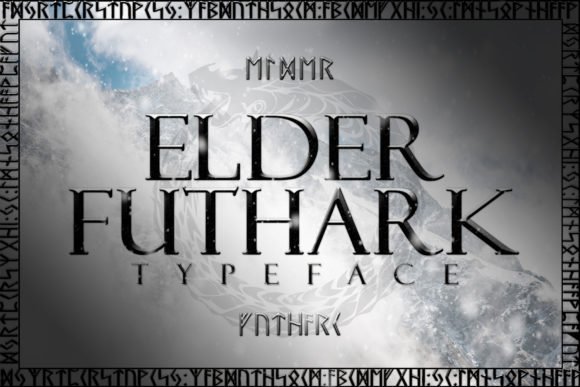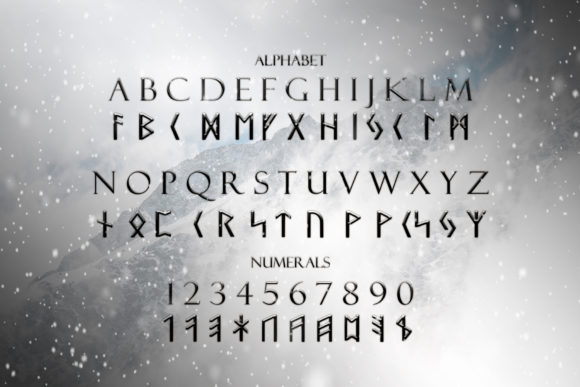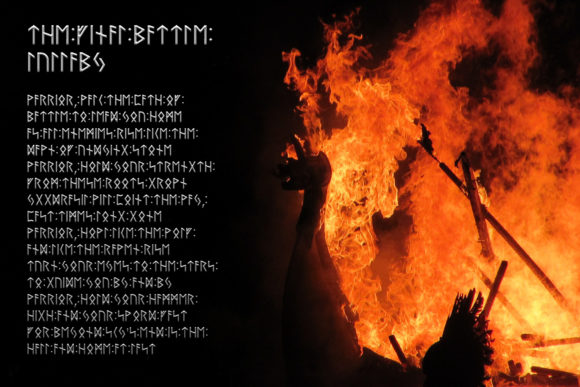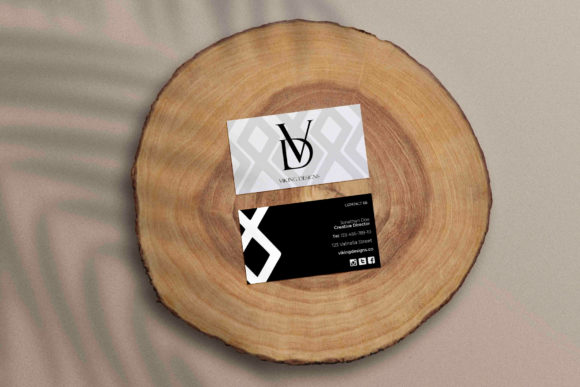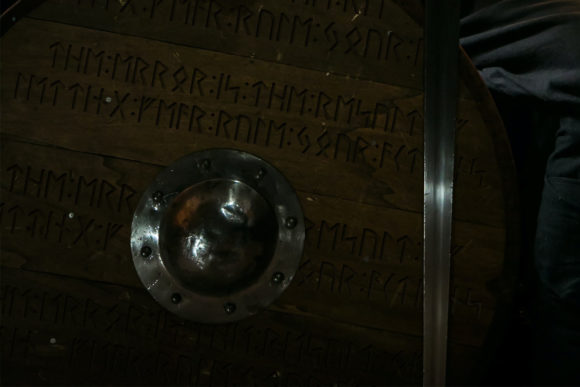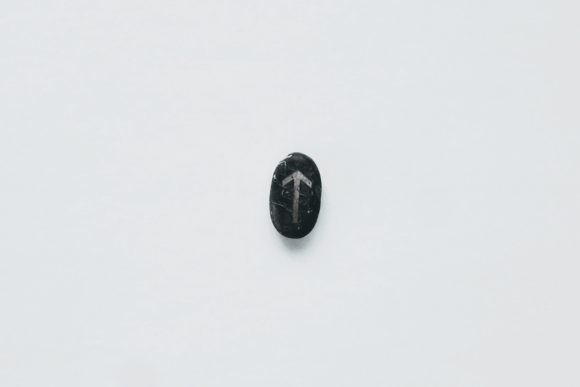
Unleashing the Mystique of the Ancient Runes
As I sat at my desk, surrounded by scattered papers and half-finished designs, I stumbled upon an old book on ancient alphabets. The intricate patterns and symbols on the pages sparked a creative itch within me, and I couldn’t help but wonder what it would be like to bring the mystique of the ancient runes to life. And so, the Elder Futhark Font was born.
This unique font is based on the oldest form of the runic alphabet, used by Germanic tribes from the 2nd to the 8th centuries. With its perfect blend of ancient mysticism and modern design, the Elder Futhark Font is a treasure trove for designers looking to add a touch of history and elegance to their work. Whether it’s a logo, monogram, title, or poster, this font is sure to captivate and inspire.
Elder Futhark Font Key Features
- Font Style: A serif font with a runic design, mimicking the traditional Elder Futhark script.
- Character Set: The font includes the entire Elder Futhark runic alphabet, consisting of 24 characters, as well as additional characters for punctuation and diacritical marks.
- Unique Characteristics: The Elder Futhark Font features a distinctive, hand-drawn design that accurately represents the traditional runic script, making it ideal for use in historical and cultural contexts.
Elder Futhark Font Review
I recently had the chance to work with the Elder Futhark font, and I must say it’s a fascinating addition to any design project. Here are my thoughts on what works well and what doesn’t.
- Authenticity: The font’s design is deeply rooted in the history of the Elder Futhark script, making it a great choice for projects that require a sense of cultural authenticity.
- Unique charm: The font’s distinctive look and feel add a touch of mysticism and ancient wisdom to any design, which can be a great asset for projects that need to evoke a sense of timelessness.
- Good legibility: Despite its unique design, the font is still relatively easy to read, making it a practical choice for text-heavy projects.
- Limited font family: The Elder Futhark font only comes in a few weights, which can limit its versatility in certain projects.
- Not suitable for modern designs: The font’s ancient design can make it feel out of place in modern designs that require a more contemporary look and feel.
The Elder Futhark font is a unique and fascinating addition to any design project. While it has its limitations, it’s a great choice for projects that require a sense of cultural authenticity and a touch of mysticism. Just be mindful of its limited font family and suitability for modern designs.
The Elder Futhark font is ideal for:
- Creating ancient or mystical-themed designs.
- Adding a unique touch to your branding or logo.
- Designing runes or other symbolic graphics.